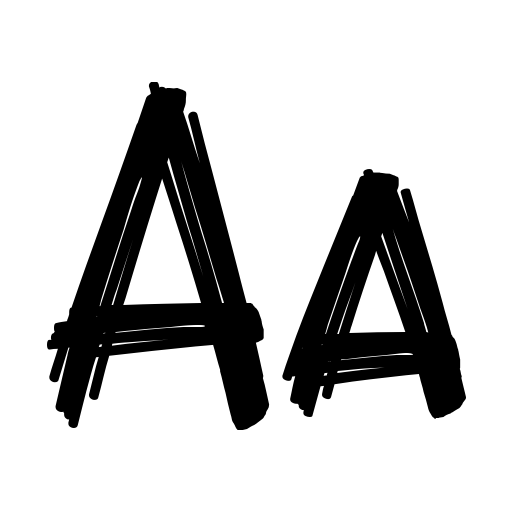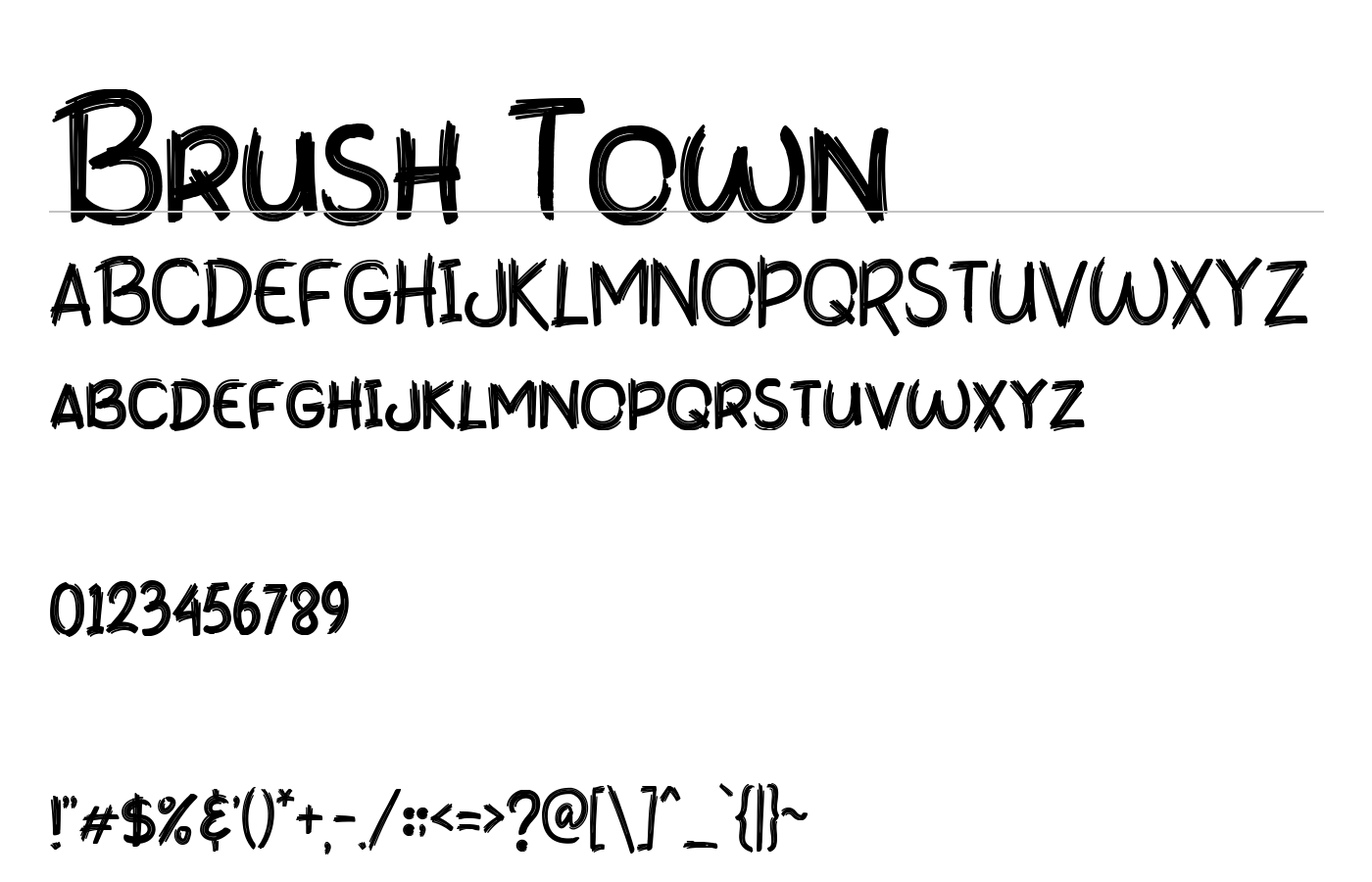
Brush Town is a playful, hand-drawn sans serif font with a lively brushstroke texture that adds a casual and artistic feel. Its tall, slightly narrow letters and uneven strokes give it an energetic and approachable personality, making it ideal for creative projects, informal branding, and fun, eye-catching headlines. This font works well where a spontaneous, handcrafted look is desired to bring charm and warmth to designs.
Brush Town Font
About Brush Town Font
| Font family | Brush Town Font |
| Designer | Muhammad Sirojuddin |